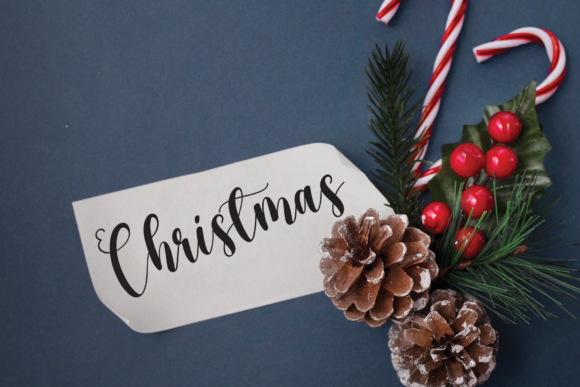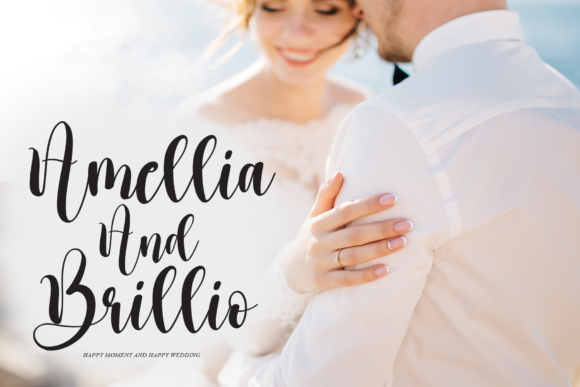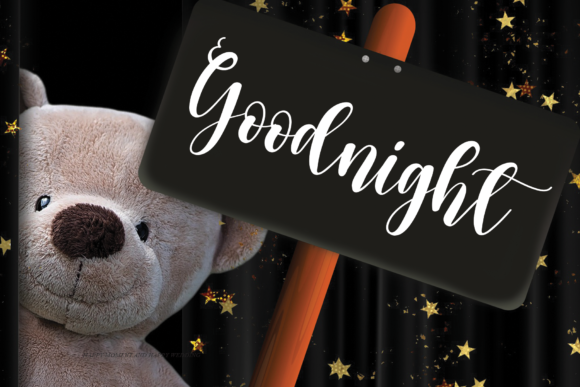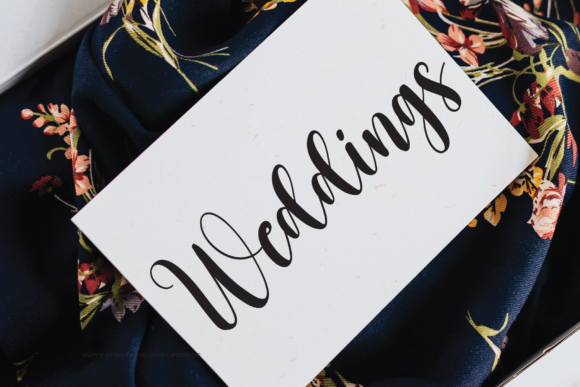
The Perfect Script for Your Next Project: Boho & Babe Font
You know that moment when a font just speaks to you? When you see it, and you instantly envision the entire design, the color palette, the overall vibe? That’s what happened to me when I stumbled upon the Boho & Babe Font. It’s a handwritten font that screams ‘relax, let’s get creative’ – and I’m obsessed.
Boho & Babe Font is more than just a pretty face; it’s a versatile script font designed to elevate your next project. Whether you’re working on a greeting card, a headline, or a brand identity, this adaptable font is guaranteed to bring a fresh and alluring feel to your work. As a designer, you know how valuable it is to have a font that can seamlessly blend into any project – and that’s exactly what Boho & Babe Font offers.
Key Features of Boho & Babe Font
- Font Style: Script Font with a bohemian and elegant feel, ideal for creative and artistic projects.
- Unique Characteristics: Features unique and flowing script strokes, with subtle irregularities that add to its bohemian charm.
Boho & Babe Font Review
As a designer, I was excited to dive into the Boho & Babe Font and see if it lived up to its bohemian-inspired name. Overall, I was pleasantly surprised by its unique charm.
- Unique Character: Boho & Babe Font has a distinct, hand-drawn feel that sets it apart from other fonts.
- Playful Whimsy: The font’s quirky personality makes it perfect for creative projects that require a carefree vibe.
- Legibility: Despite its ornate appearance, Boho & Babe Font is surprisingly readable, making it suitable for body text.
- Limited Font Variations: Boho & Babe Font is available in only a few weights, which may limit its versatility in certain projects.
- Not Ideal for Headings: While the font is legible, its ornate design may not be suitable for headings or titles, where clear readability is crucial.
Boho & Babe Font is a delightful addition to any designer’s toolkit. While it may have its limitations, its unique charm and playfulness make it perfect for projects that require a creative, free-spirited vibe.
Tips for Getting the Most Out of the Boho & Babe Font
To get the most out of the Boho & Babe font, try the following:
- Pair it with complementary fonts to create a visually appealing design.
- Use it in combination with bold and italic styles to add emphasis.
The Boho & Babe font is perfect for:
- Creating a bohemian-inspired aesthetic.
Alternatives to Boho & Babe Font for Designers
Great Vibes is a beautiful, handwritten font perfect for creating a carefree and elegant atmosphere. It’s ideal for use in invitations, greeting cards, and any other design where a touch of whimsy is needed.
Compared to Boho & Babe Font, Great Vibes has a more refined and polished look, making it suitable for formal and informal designs alike. While Boho & Babe Font has a more distressed and vintage feel, Great Vibes is more modern and sophisticated.
Carolyna Pro is a modern, elegant script font that’s perfect for creating a luxurious and sophisticated atmosphere. It’s ideal for use in high-end branding, packaging, and editorial design.
Compared to Boho & Babe Font, Carolyna Pro has a more refined and polished look, making it suitable for formal and high-end designs. While Boho & Babe Font has a more bohemian and eclectic feel, Carolyna Pro is more sophisticated and elegant.